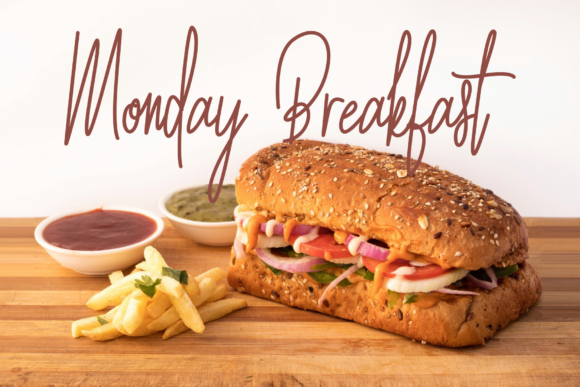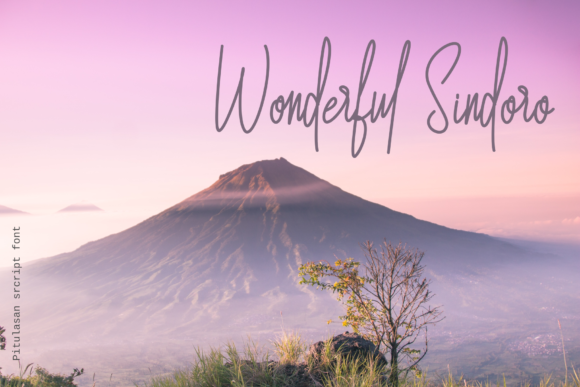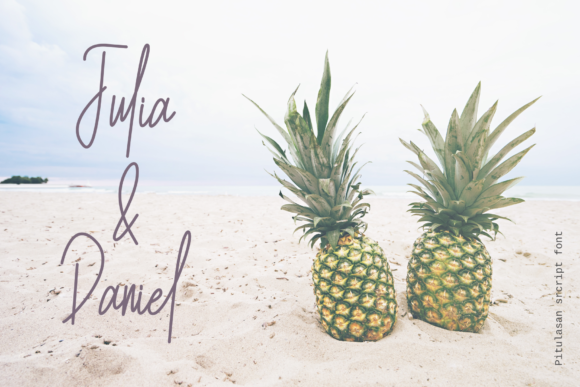
Introduction to Pitulasan Font
Do you ever find yourself in a creative rut, staring at a blank page with no idea where to start? For designers, this moment can be frustrating, but it’s also an opportunity to discover a new design resource that can elevate your project. That’s where the Pitulasan Font comes in – a simple and flowing handwritten font that’s perfect for adding a touch of elegance to your work.
Pitulasan Font is more than just a pretty face; it’s a versatile tool that can be used on a variety of design ideas, from logos to social media graphics. With its PUA encoded features, you can access all of the glyphs and swashes with ease, making it a valuable addition to any designer’s toolkit.
Key Features of Pitulasan Font
- High-quality design resource ideal for creative projects, offering a unique and stylish touch.
- Pitulasan Font is a versatile design resource, suitable for a variety of creative projects, from branding to editorial content.
Honest Review: Pitulasan Font
I recently came across the Pitulasan Font while searching for a high-quality font for a creative project. As a designer, I appreciate free downloads that can elevate my designs without breaking the bank. The Pitulasan Font caught my attention with its unique, modern design that’s perfect for digital and print projects.
- ✨ Unique and modern design style that stands out from the crowd
- ✨ High-quality font that’s suitable for both digital and print projects
- ⚠️ Limited character set, which may not be ideal for long-form texts
- ⚠️ Not suitable for very small font sizes, as it may become difficult to read
Overall, I’m impressed with the Pitulasan Font. It’s a great addition to any designer’s toolkit, especially for creative projects that require a modern and unique touch. While it has some limitations, I believe the benefits outweigh the drawbacks.
The Pitulasan Font is perfect for a variety of design projects, including logos, icons, headings, and titles. It’s also great for creating high-quality designs with a transparent background, making it ideal for social media graphics, presentations, and other digital content.
To get the most out of the Pitulasan Font, use it in conjunction with other design elements, such as images and graphics. Experiment with different font sizes, colors, and styles to create a unique and eye-catching design. Additionally, use the Pitulasan Font in combination with a transparent background to create a clean and professional look.